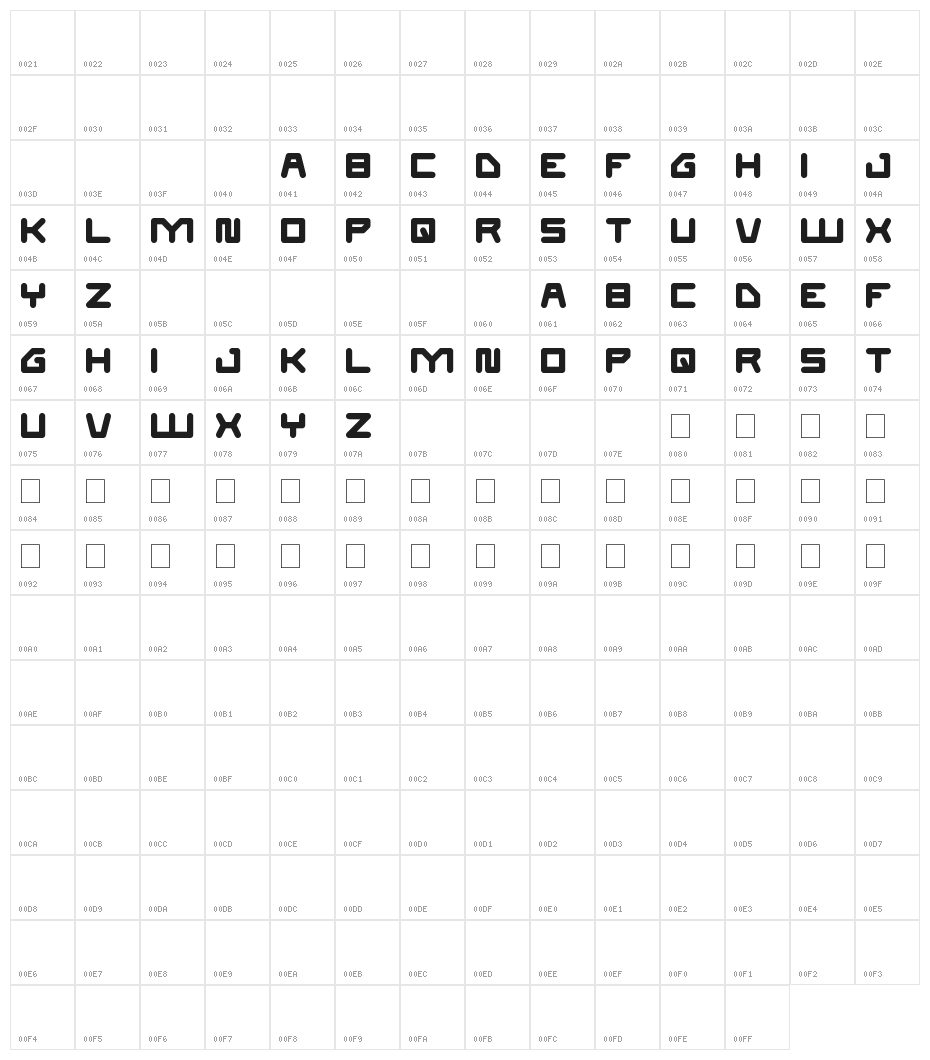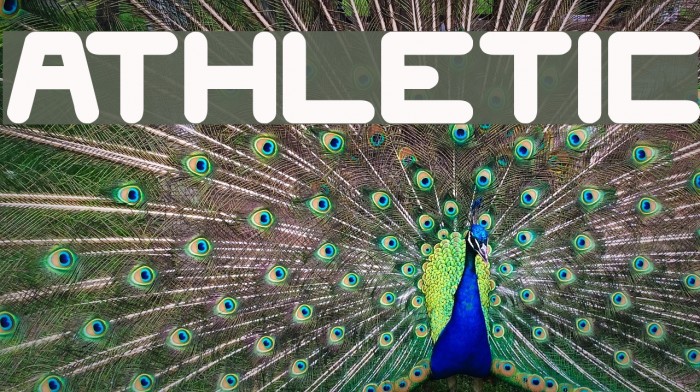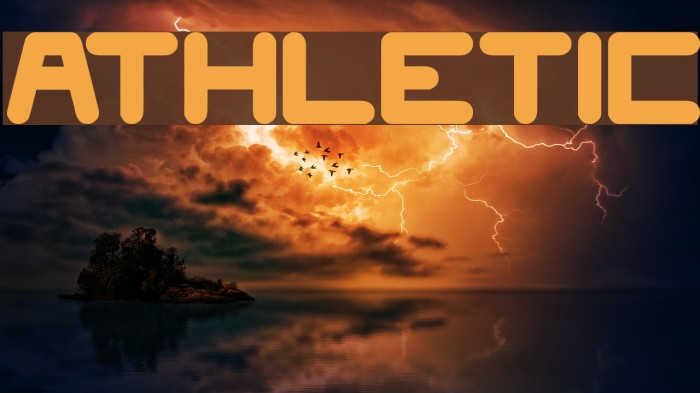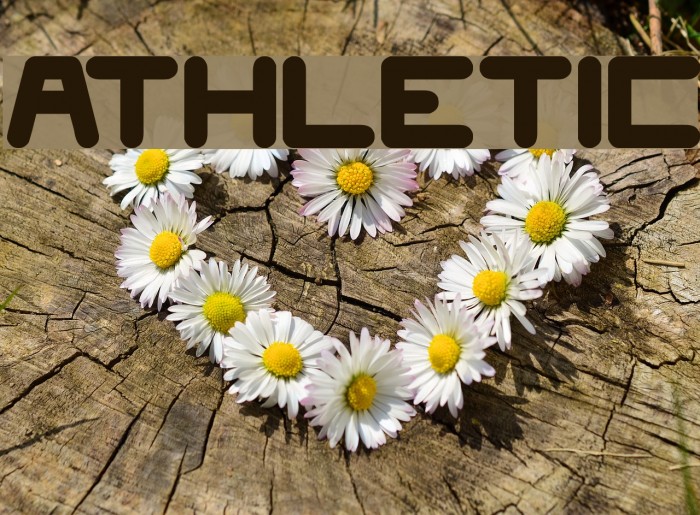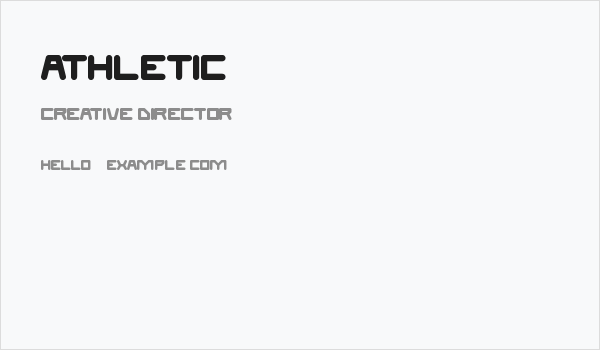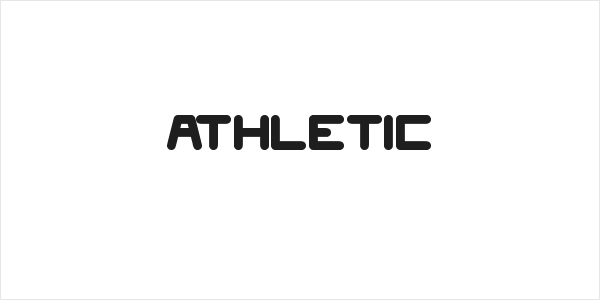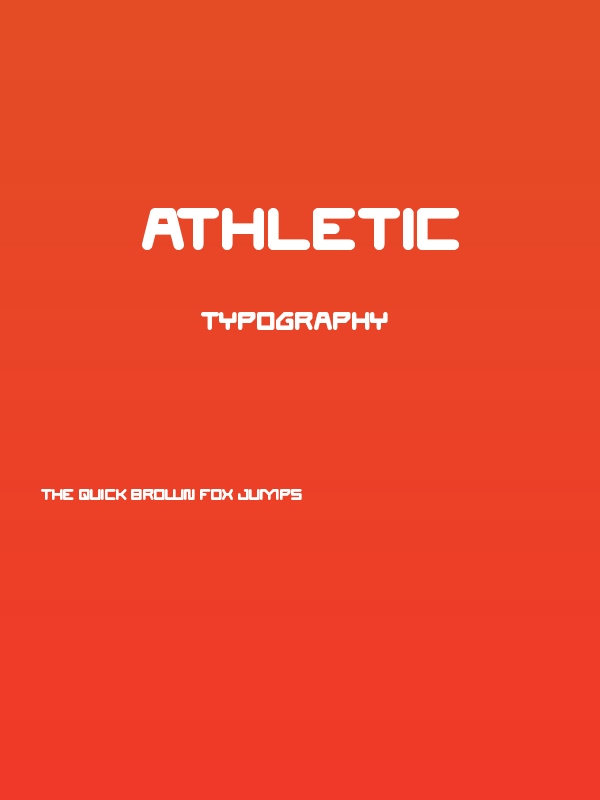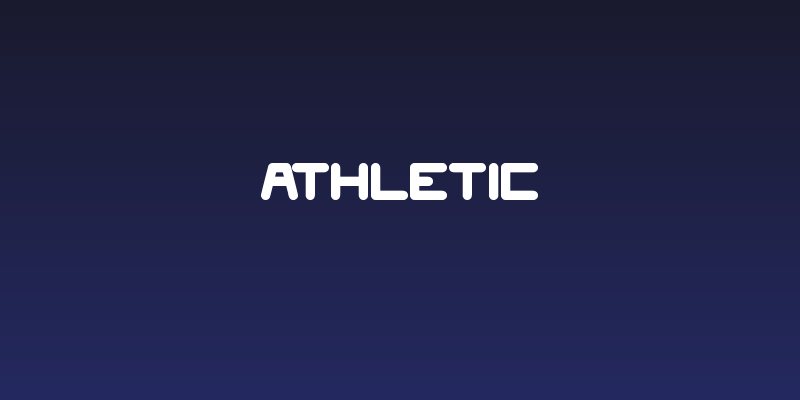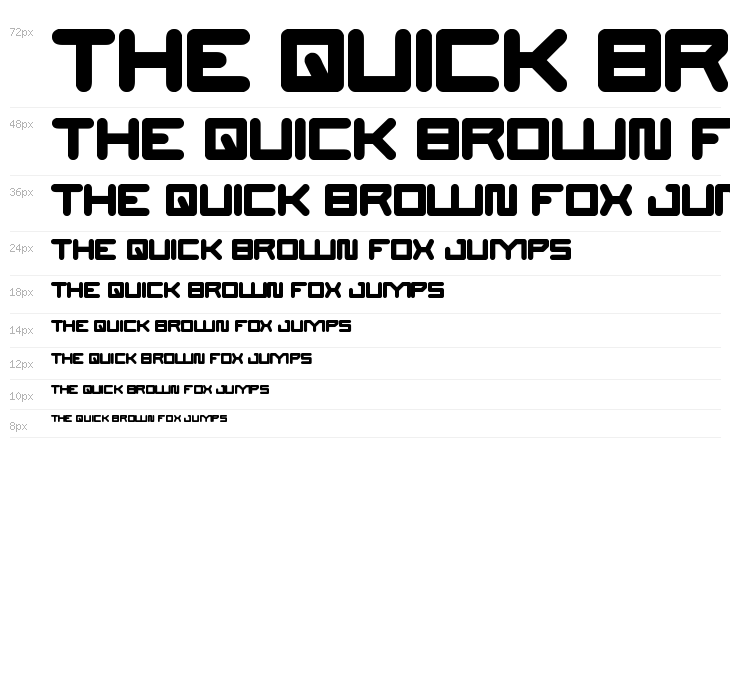
athletic Font
athletic Description
This font features a bold, geometric design with rounded edges, giving it a modern and sporty appearance. The characters are uniformly thick, creating a strong visual impact. The style is reminiscent of athletic branding, with a focus on readability and a contemporary aesthetic. The consistent stroke width across all characters contributes to its cohesive look, making it ideal for dynamic and energetic themes. Its structured form and smooth curves make it versatile for various design applications.
| Proposed Projects | Perfect for sports team branding, athletic apparel, event posters, and modern logo designs. |